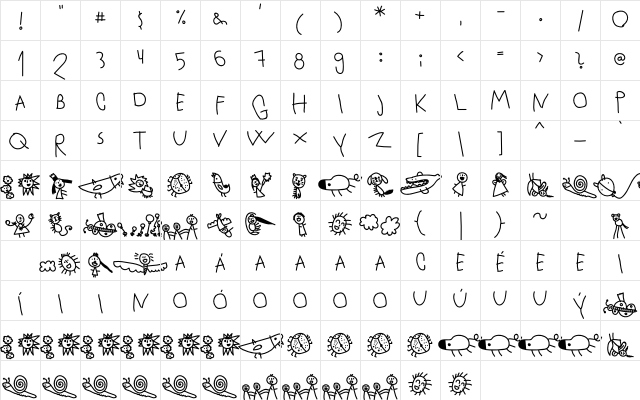
Upirjuli4 Regular
| Designer | Vaclav Krejci |
Design Context for Upirjuli4 Typeface
Upirjuli4 is a composed and adaptable typeface that performs quietly and consistently across a wide range of design contexts.